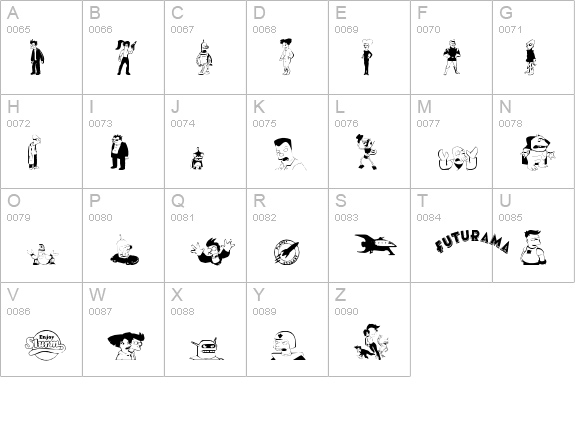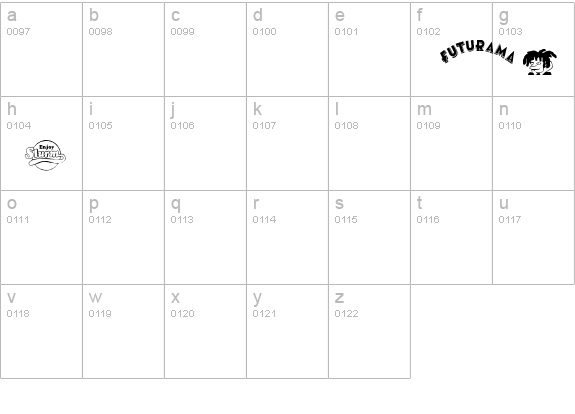
futurama dingbats Font Details
Futurama Dingbats Font is a fun and quirky typeface inspired by the popular animated TV show "Futurama". This unique font features a variety of symbols and icons related to the futuristic world of the show, making it perfect for adding a touch of sci-fi style to your designs. Whether you're creating a poster, flyer, or social media graphic, Futurama Dingbats Font is sure to make your project stand out. Best of all, Futurama Dingbats Font is available for free download at FontsMarket.com. Simply head to the website and grab this fantastic font to use in your next creative project. With its eye-catching design and easy-to-use symbols, Futurama Dingbats Font is a must-have for any designer looking to add a touch of futuristic flair to their work. Download it today and let your imagination soar!